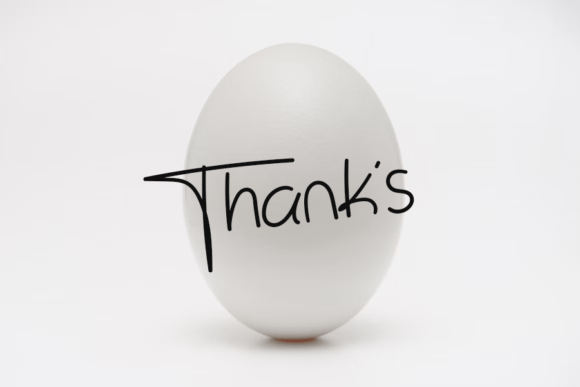
Easteregg Font: Add a Touch of Whimsy to Your Designs
Easteregg Font is a delightful and charming handwritten script font that is sure to bring a smile to your face. This lovely font is perfect for designers and crafters looking to add a touch of whimsy and romance to their projects. With its gentle and sweet appearance, Easteregg Font is ideal for a wide range of design ideas, from wedding invitations and baby shower announcements to branding and packaging.
A Lovely and Sweet Handwritten Script Font
Easteregg Font is a beautifully crafted handwritten script font that exudes a sense of joy and playfulness. Its soft and flowing curves make it perfect for creating elegant and sophisticated designs that are sure to impress. Whether you’re looking to create a romantic wedding invitation or a fun and playful branding campaign, Easteregg Font is the perfect choice.
Perfect for a Variety of Design Ideas
One of the best things about Easteregg Font is its versatility. This lovely font can be used on a wide range of design ideas, from:
• Baby shower announcements and decorations
• Branding and packaging
• Blog and website headers
Whether you’re a designer, crafter, or DIY enthusiast, Easteregg Font is sure to inspire your creativity and help you create beautiful and eye-catching designs.
Add a Joyful and Romantic Touch to Your Projects
Easteregg Font is more than just a font – it’s a way to add a touch of joy and romance to your projects. Its sweet and playful appearance makes it perfect for creating designs that are fun, elegant, and sophisticated. With Easteregg Font, you can:
• Create beautiful and unique wedding invitations that will make your loved ones feel special
• Design adorable and playful baby shower announcements that will delight your friends and family
• Develop a strong brand identity that is both elegant and sophisticated
Whether you’re looking to create a romantic and whimsical design or a fun and playful one, Easteregg Font is the perfect choice.
Why Choose Easteregg Font?
So why choose Easteregg Font for your design projects? Here are just a few reasons:
• Unique and eye-catching: Easteregg Font is a one-of-a-kind font that is sure to make your designs stand out from the crowd.
• Versatile: This lovely font can be used on a wide range of design ideas, from wedding invitations to branding and packaging.
• Elegant and sophisticated: Easteregg Font is perfect for creating elegant and sophisticated designs that are sure to impress.
Get Creative with Easteregg Font
Are you ready to add a touch of whimsy and romance to your designs? With Easteregg Font, the possibilities are endless. Here are a few ideas to get you started:
• Create a beautiful and unique wedding invitation that will make your loved ones feel special
• Design a playful and adorable baby shower announcement that will delight your friends and family
• Develop a strong brand identity that is both elegant and sophisticated
• Create a fun and playful social media graphic that will engage your followers